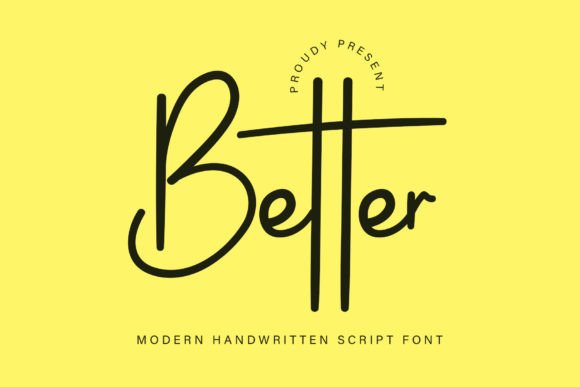
Better Font: Elevate Your Designs with a Delicate Handwritten Touch
In the world of typography, a well-chosen font can make all the difference in creating a visually stunning design. For designers and crafters looking to add a touch of elegance and uniqueness to their projects, Better Font is an excellent choice. This carefully crafted handwritten font is perfect for creating cool and eye-catching designs that stand out from the crowd.
What is Better Font?
Better Font is a delicate handwritten font that exudes a sense of sophistication and charm. Its intricate strokes and subtle nuances make it an ideal choice for a variety of design applications, including letters, invitations, food products, titles, and more. Whether you’re a professional designer or a crafty DIY enthusiast, Better Font is sure to inspire your creativity and take your designs to the next level.
Key Features of Better Font
- Handwritten with love: Better Font is carefully crafted with attention to detail, giving it a personal and human touch that’s hard to replicate with generic fonts.
- Delicate and elegant: The font’s intricate strokes and subtle nuances make it perfect for designs that require a touch of sophistication and refinement.
- Versatile: Better Font can be used for a wide range of design applications, from letters and invitations to food products, titles, and more.
- Unique and eye-catching: With Better Font, you can create designs that stand out from the crowd and leave a lasting impression on your audience.
Use Cases for Better Font
Better Font is an incredibly versatile font that can be used in a variety of design applications. Here are some ideas to get you started:
- Wedding invitations: Add a touch of elegance and romance to your wedding invitations with Better Font.
- Food blogs and recipes: Use Better Font to add a personal touch to your food blog or recipe cards.
- Branding and packaging: Create eye-catching brand labels and packaging with Better Font.
- Stationery and greeting cards: Add a touch of personality to your stationery and greeting cards with Better Font.
Why Choose Better Font?
With so many fonts available, why choose Better Font? Here are just a few reasons why Better Font stands out from the crowd:
- Unique and exclusive: Better Font is a one-of-a-kind font that’s sure to make your designs stand out.
- Easily readable: Despite its delicate nature, Better Font is surprisingly easy to read, making it perfect for body text and headlines.
- High-quality: Better Font is crafted with attention to detail, ensuring a high-quality design that will impress your audience.
Tips for Using Better Font
To get the most out of Better Font, here are a few tips to keep in mind:
- Pair with contrasting fonts: Pair Better Font with a contrasting font to create visual interest and hierarchy in your design.
- Use for headlines and titles: Better Font is perfect for headlines and titles, where its delicate nature can shine.
- Experiment with colors: Better Font looks great in a variety of colors, so don’t be afraid to experiment and find the perfect hue for your design.
In conclusion, Better Font is a delicate handwritten font that’s perfect for designers and crafters looking to add a touch of elegance and uniqueness to their projects. With its intricate strokes, subtle nuances, and versatile nature, Better Font is sure to inspire your creativity and take your designs to the next level.